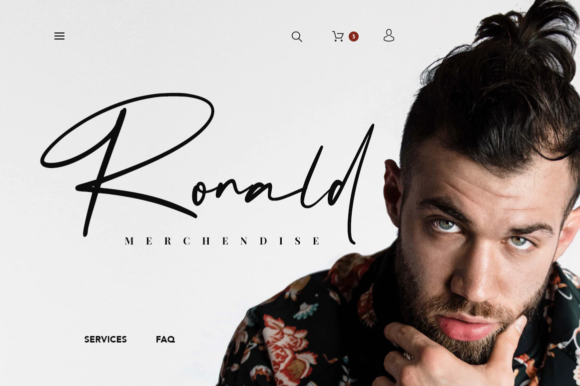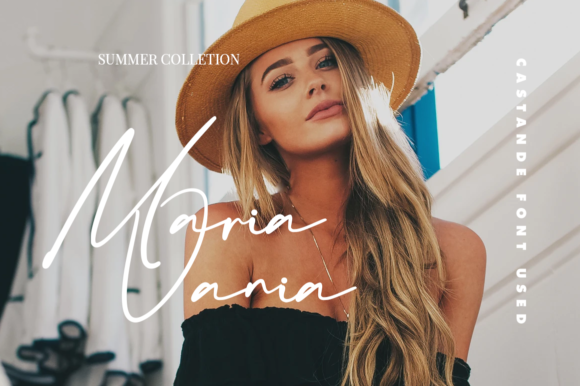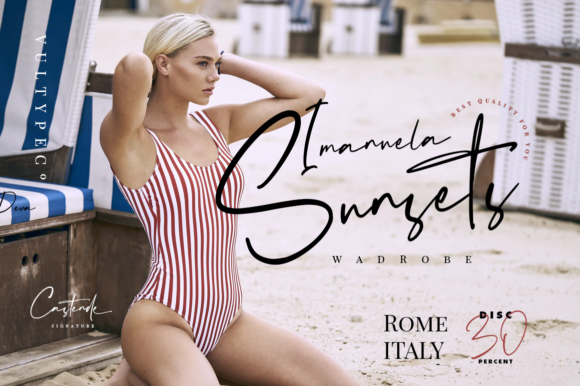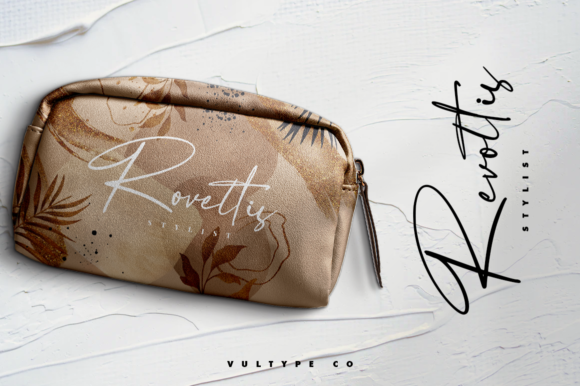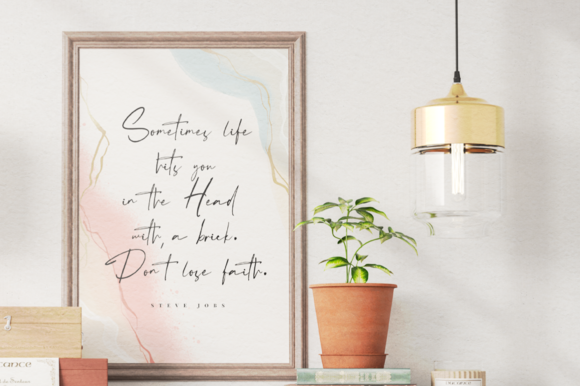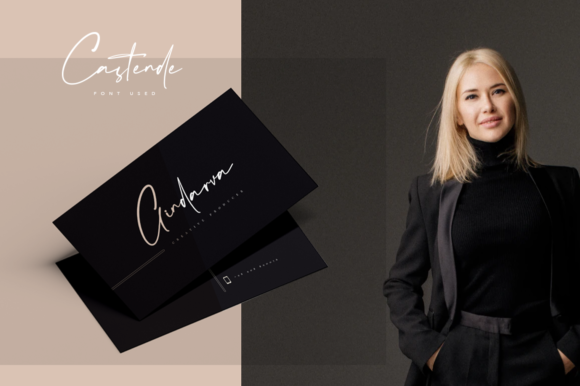
Introducing Castende Font: Elevate Your Designs with Elegance and Sophistication
In the world of typography, a font can make all the difference in the aesthetic and appeal of a design. For those seeking a touch of elegance and sophistication, Castende Font is an exquisite choice. This thin lettered and graceful script font is designed to captivate with its ravishing style, making it perfect for a variety of creative projects.
The Beauty of Castende Font
Castende Font boasts a unique, slender design that exudes refinement and poise. Its graceful script letters flow effortlessly, creating a beautiful visual experience. Whether you’re working on wedding invitations, stationery art, social media posts, or any other design project, Castende Font is sure to add a touch of class and sophistication.
With Castende Font, the creative possibilities are endless. Here are a few ideas to get you started:
- Wedding Invitations: Create stunning wedding invitations that set the tone for a beautiful and elegant celebration.
- Stationery Art: Design gorgeous stationery, including letterheads, notebooks, and journals, that showcase your refined taste.
- Social Media Posts: Elevate your social media presence with eye-catching posts that feature Castende Font’s elegant style.
- Branding and Packaging: Use Castende Font to create a cohesive brand identity that exudes luxury and sophistication.
Why Choose Castende Font?
Here are just a few reasons why Castende Font is a top choice for designers and crafters:
- Unique and Elegant Design: Castende Font’s slender and graceful design sets it apart from other script fonts.
- Versatility: Use Castende Font for a wide range of projects, from wedding invitations to social media posts.
- High-Quality: Castende Font is designed to deliver exceptional results, ensuring your designs look professional and polished.
In conclusion, Castende Font is a beautiful and elegant script font that is sure to elevate your designs. With its unique and refined style, versatility, and ease of use, it’s an excellent choice for designers and crafters. Whether you’re working on wedding invitations, stationery art, social media posts, or any other project, Castende Font is the perfect tool to help you create stunning designs that will leave a lasting impression.